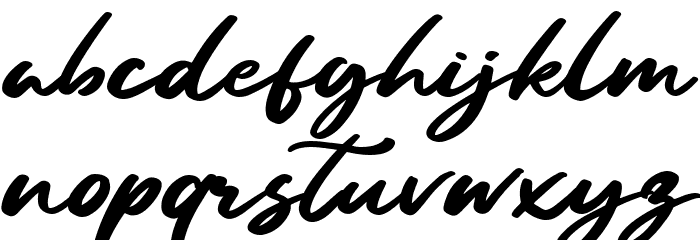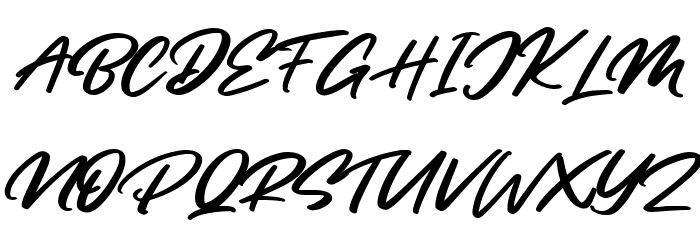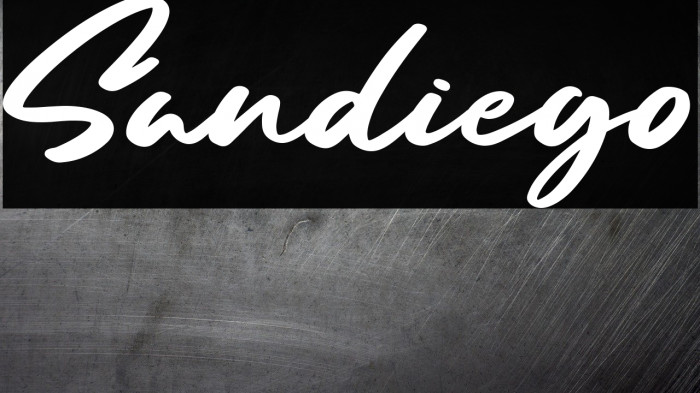
Sandiego Font
This font exhibits a dynamic and fluid script style, characterized by its elegant, cursive strokes that mimic natural handwriting. The letters are interconnected, creating a seamless flow that enhances its handwritten appeal. The uppercase letters are bold and slightly slanted, adding a sense of movement and energy. The lowercase letters maintain a consistent style, with smooth curves and loops that contribute to its overall graceful appearance. The font's design is both modern and timeless, making it versatile for various applications. Its boldness ensures readability while maintaining an artistic flair, making it suitable for creative and expressive projects.
A dynamic, fluid script font with elegant cursive strokes and a bold, modern style.